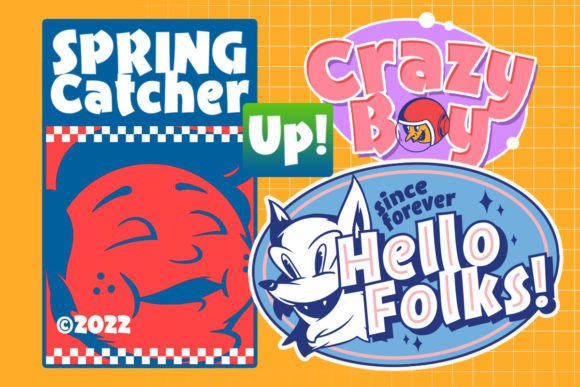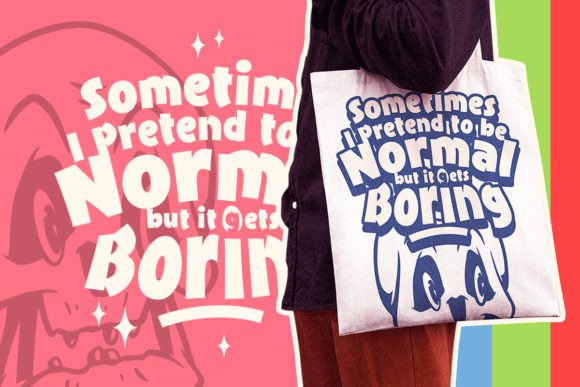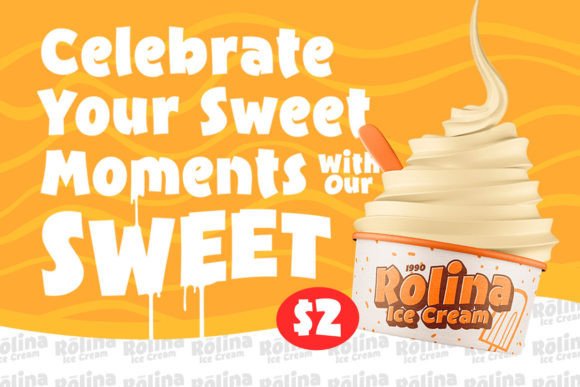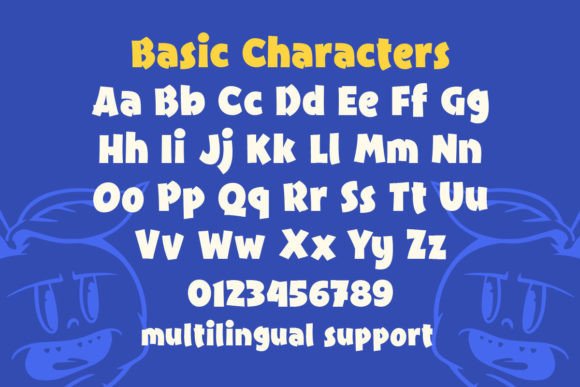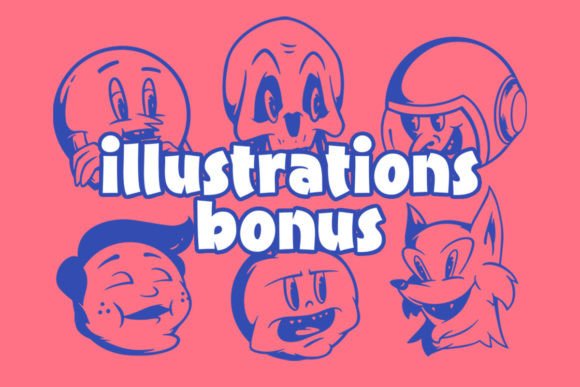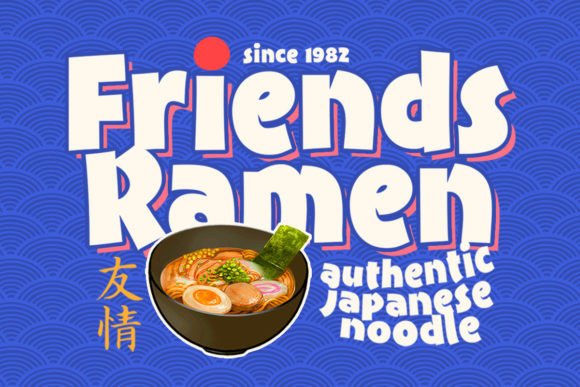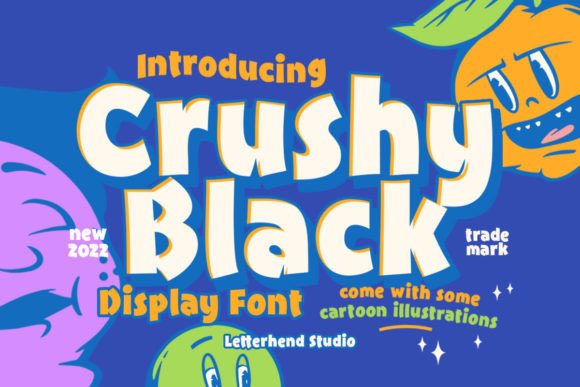
Introducing Crushy Black Font: The Ultimate Choice for Fun and Playful Designs
Are you tired of using the same old fonts for your designs? Do you want to add a touch of playfulness and authenticity to your projects? Look no further than Crushy Black Font! This fun and joyful display font is perfect for any children’s activity or school project, and is sure to make your designs come alive.
What is Crushy Black Font?
Crushy Black Font is a chunky lettered font that embodies playfulness and authenticity. Its unique and fun design makes it perfect for a variety of projects, from children’s activity sheets to school posters and flyers. With its bold and eye-catching letters, Crushy Black Font is sure to grab the attention of your audience and leave a lasting impression.
Characteristics of Crushy Black Font
So, what makes Crushy Black Font so special? Here are just a few of its key characteristics:
- Fun and playful design: Crushy Black Font has a unique and fun design that is sure to add a touch of playfulness to any project.
- Chunky letters: The font features chunky letters that are bold and eye-catching, making it perfect for display purposes.
- Authentic feel: Crushy Black Font has an authentic feel that makes it perfect for projects that require a personal touch.
- Easy to read: Despite its chunky design, Crushy Black Font is easy to read, making it perfect for projects that require a clear and concise message.
Uses for Crushy Black Font
So, what can you use Crushy Black Font for? The possibilities are endless! Here are just a few ideas to get you started:
- Children’s activity sheets: Crushy Black Font is perfect for children’s activity sheets, such as coloring pages, word searches, and puzzles.
- School posters and flyers: The font is also great for school posters and flyers, such as event announcements, club advertisements, and educational materials.
- Crafting projects: Crushy Black Font is a great addition to any crafting project, such as scrapbooking, card making, and DIY decorations.
- Digital designs: The font can also be used for digital designs, such as social media graphics, blog posts, and website headers.
Tips for Using Crushy Black Font
Here are a few tips for using Crushy Black Font in your designs:
- Use it sparingly: While Crushy Black Font is fun and playful, it can be overwhelming if used too much. Use it sparingly to add emphasis to key words or phrases.
- Pair it with other fonts: Crushy Black Font pairs well with other fonts, such as sans serif fonts and script fonts. Experiment with different pairings to find the perfect combination.
- Experiment with colors: Crushy Black Font looks great in a variety of colors, from bright and bold to pastel and soft. Experiment with different colors to find the perfect look for your design.
In conclusion, Crushy Black Font is a fun and joyful display font that is perfect for any children’s activity or school project. Its unique and playful design makes it a great addition to any design, and its chunky letters are sure to grab the attention of your audience. With its authentic feel and easy-to-read design, Crushy Black Font is a great choice for designers and crafters looking to add a touch of playfulness to their projects.